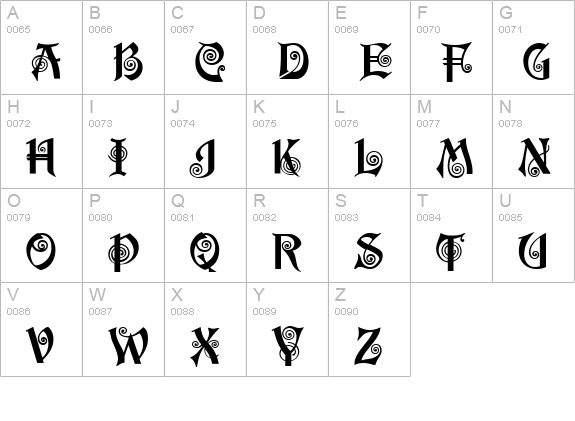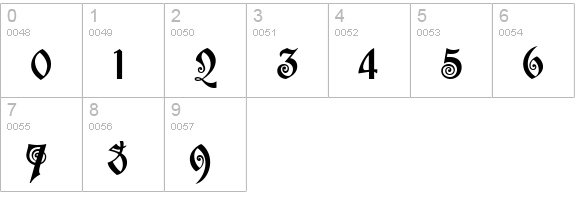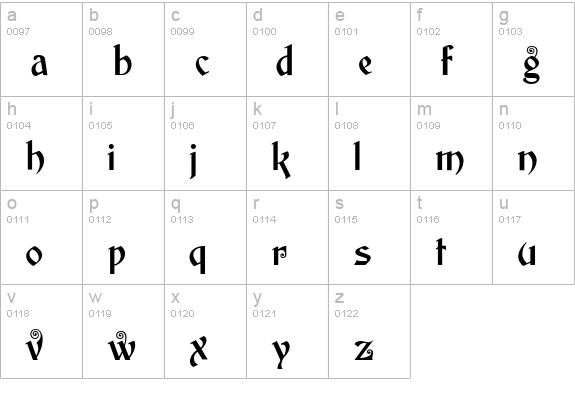
akaPotsley Font Details
Introducing akaPotsley, a captivating and versatile font that is sure to leave a lasting impression on any design project. With its unique blend of playfulness and elegance, akaPotsley is perfect for a wide range of applications, from logos and branding to invitations and social media graphics. This font exudes a sense of creativity and whimsy, making it ideal for projects that require a touch of personality and charm. Its carefully crafted letterforms feature smooth curves and clean lines, ensuring legibility while adding a touch of sophistication. One of the most remarkable aspects of akaPotsley is that it is available for free. Yes, you read that correctly! This stunning font can be downloaded for free at FontsMarket.com, where you can explore the full range of its captivating characters and ligatures. Whether you're a professional designer or a casual DIY enthusiast, akaPotsley will undoubtedly become an invaluable addition to your font collection. Its versatility allows it to shine in a variety of design styles, effortlessly adapting to your creative vision. So why wait? Discover the endless possibilities that akaPotsley offers and elevate your designs to new heights. Don't miss out on the opportunity to download this extraordinary font for free at FontsMarket.com. Unleash your creativity and let akaPotsley be your guiding inspiration.